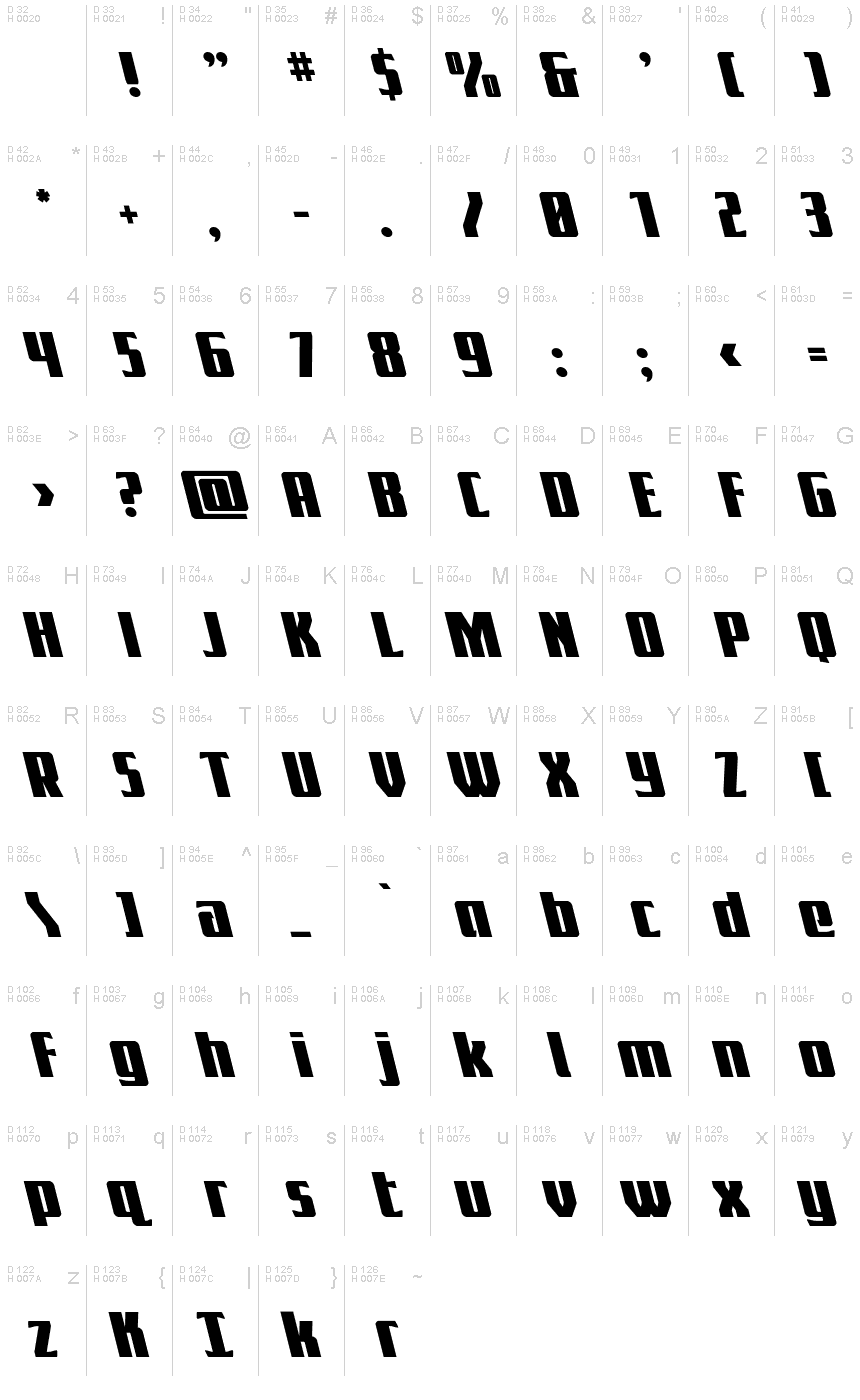
Flight Legion Leftalic
Flight Legion Leftalic is a bold and condensed display font that adds a futuristic touch to any project.
Designed by Iconian Fonts, this techno-inspired typeface is perfect for creating eye-catching headlines, logos, and branding materials. Its sleek and angular letterforms give a sense of speed and motion, making it an excellent choice for designs related to technology, gaming, or science fiction. Whether you're working on a website, poster, or packaging design, Flight Legion Leftalic will make your content stand out with its modern and edgy aesthetic.